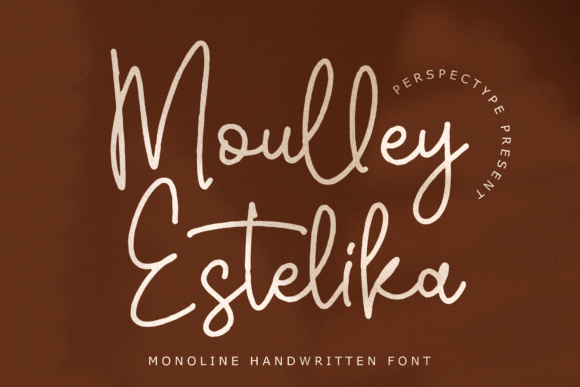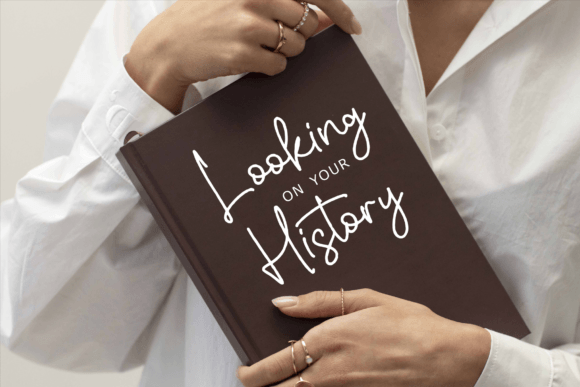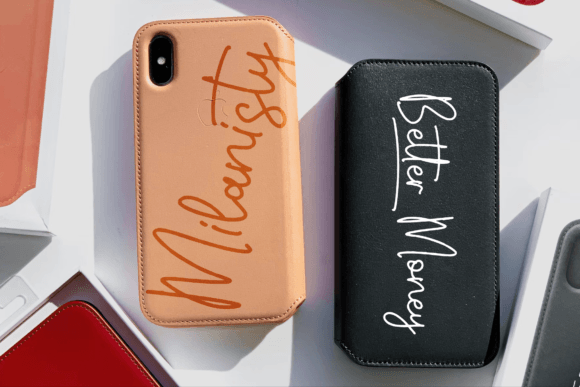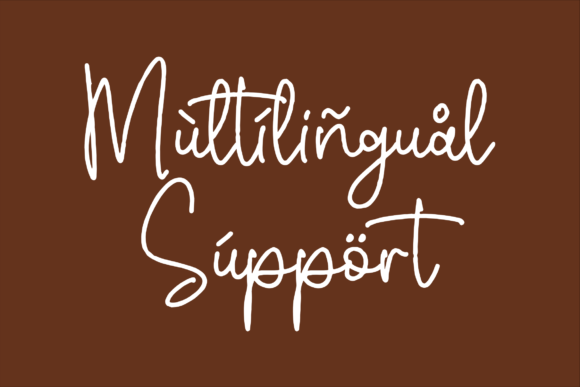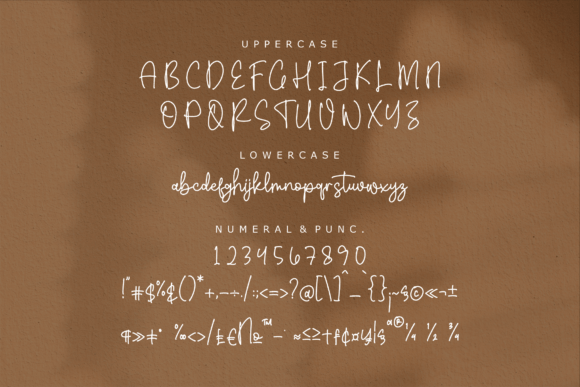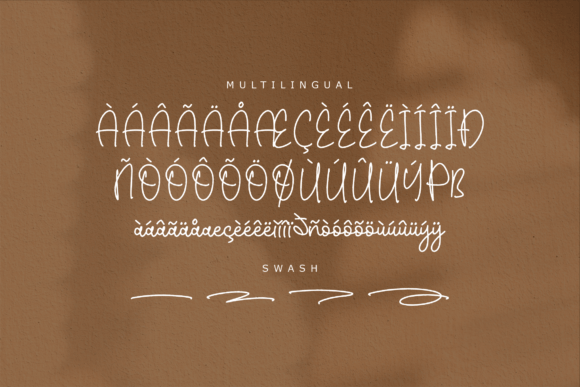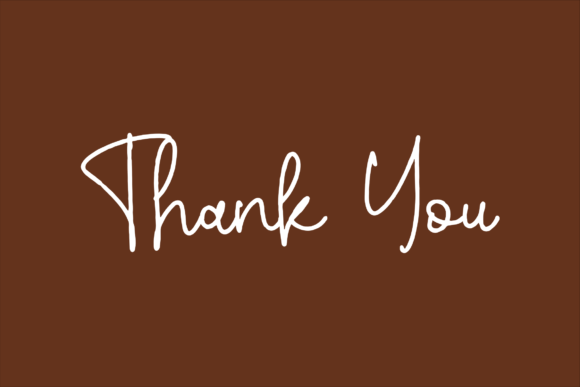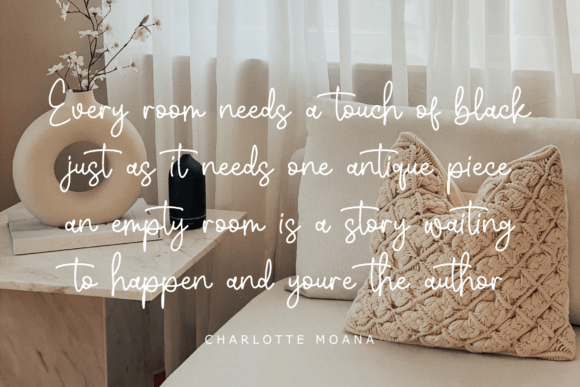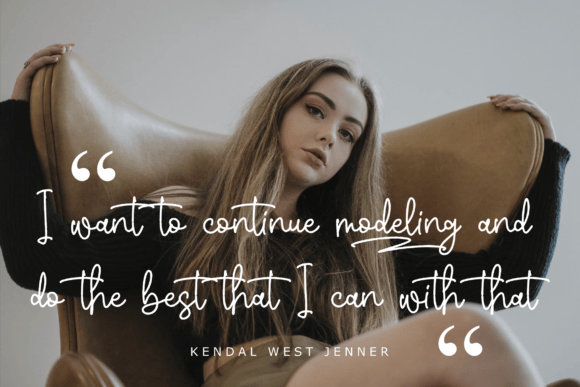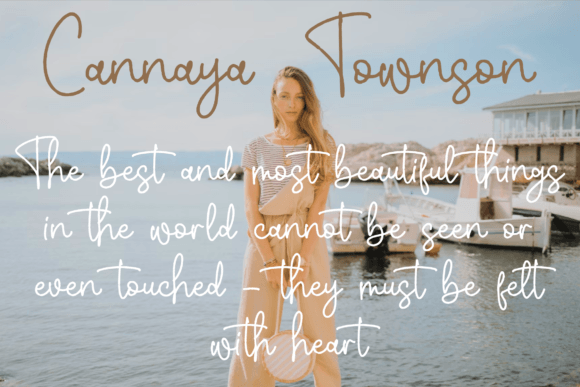
Moulley Estelika Font
About Moulley Estelika Font
Moulley Estelika font is an elegant and stylish monoline handwritten script designed to elevate any creative project you take on. When you download Moulley Estelika font, you unlock a versatile and beautiful typeface that suits a wide range of design needs. Whether you’re working on branding projects, logos, or personalized invitations, this font adds a refined, handwritten touch that stands out.
Sophisticated Monoline Style
The monoline design of Moulley Estelika gives it a clean, continuous stroke that flows beautifully. This creates a sense of modern sophistication while keeping the warmth and authenticity of handwritten script. Its delicate lines and balanced spacing ensure your text looks polished yet approachable, making it ideal for projects that require both elegance and clarity.
Wide Application Across Creative Works
Moulley Estelika font is incredibly flexible. Use it for homeware designs, product packaging, custom mugs, quotes, posters, and shopping bags. It also shines on book covers, name cards, invitation cards, greeting cards, and labels. The font’s smooth strokes and stylish appearance make it perfect for watermarking photography or special event materials, giving your work a distinctive artistic flair.
Enhance Your Designs with Ease